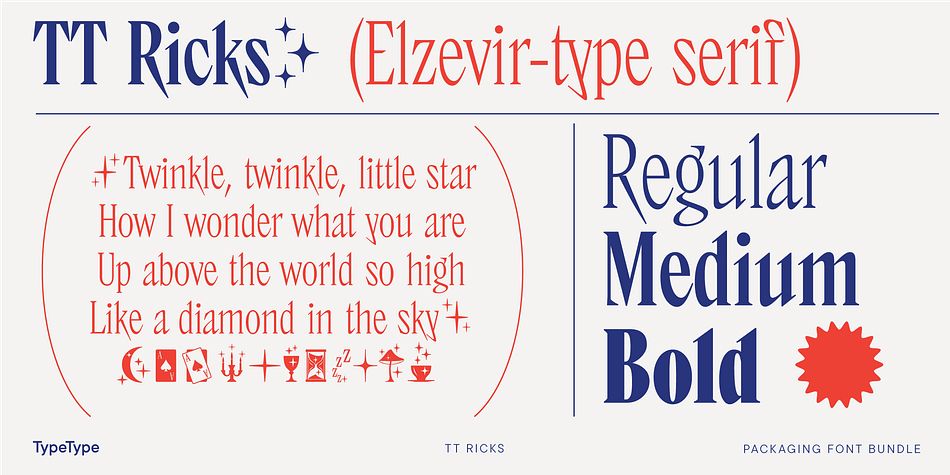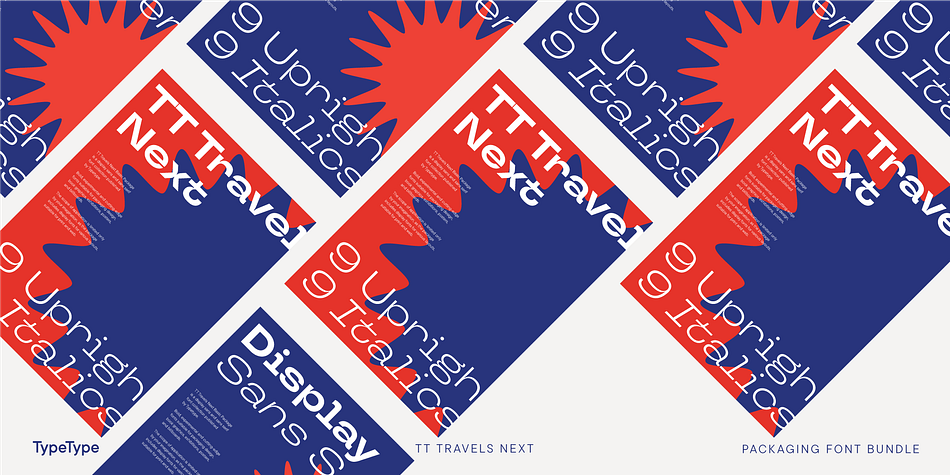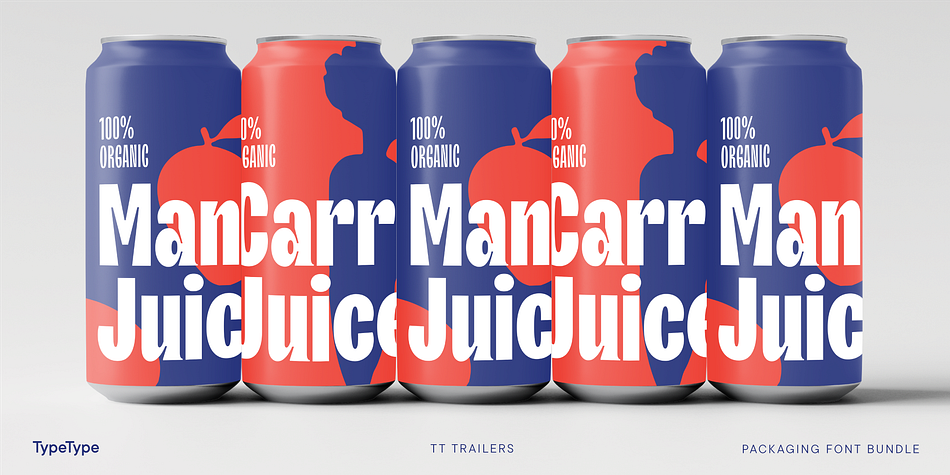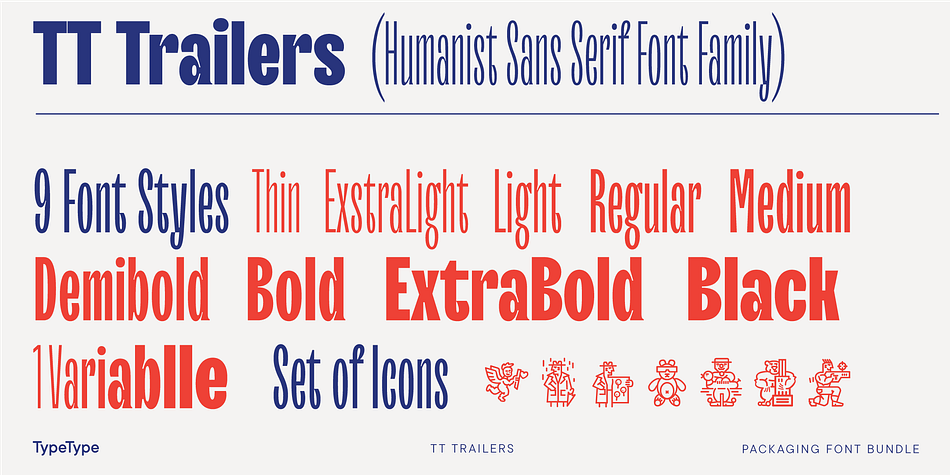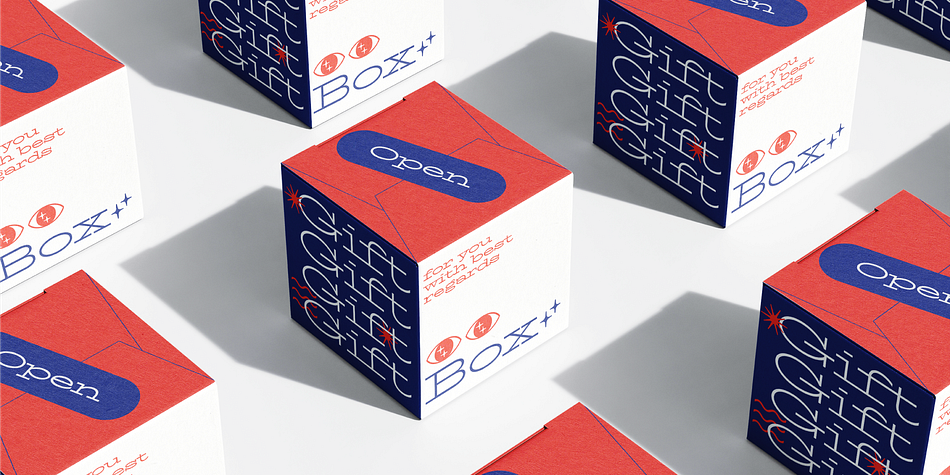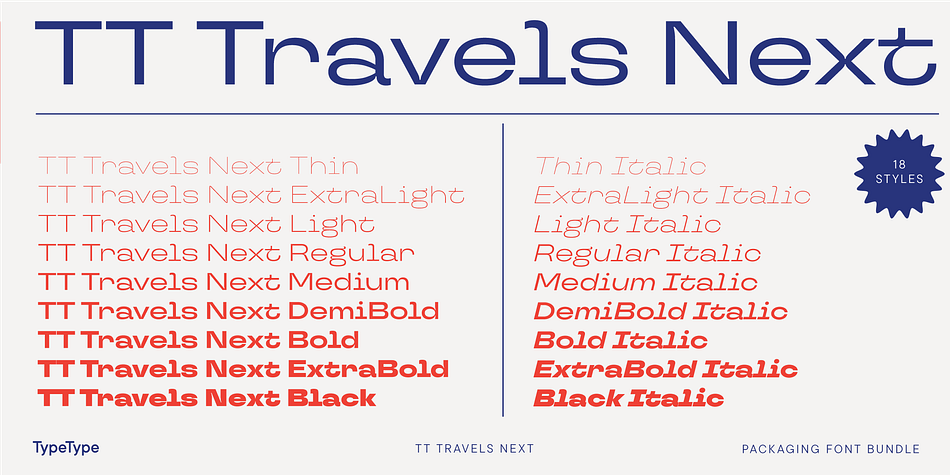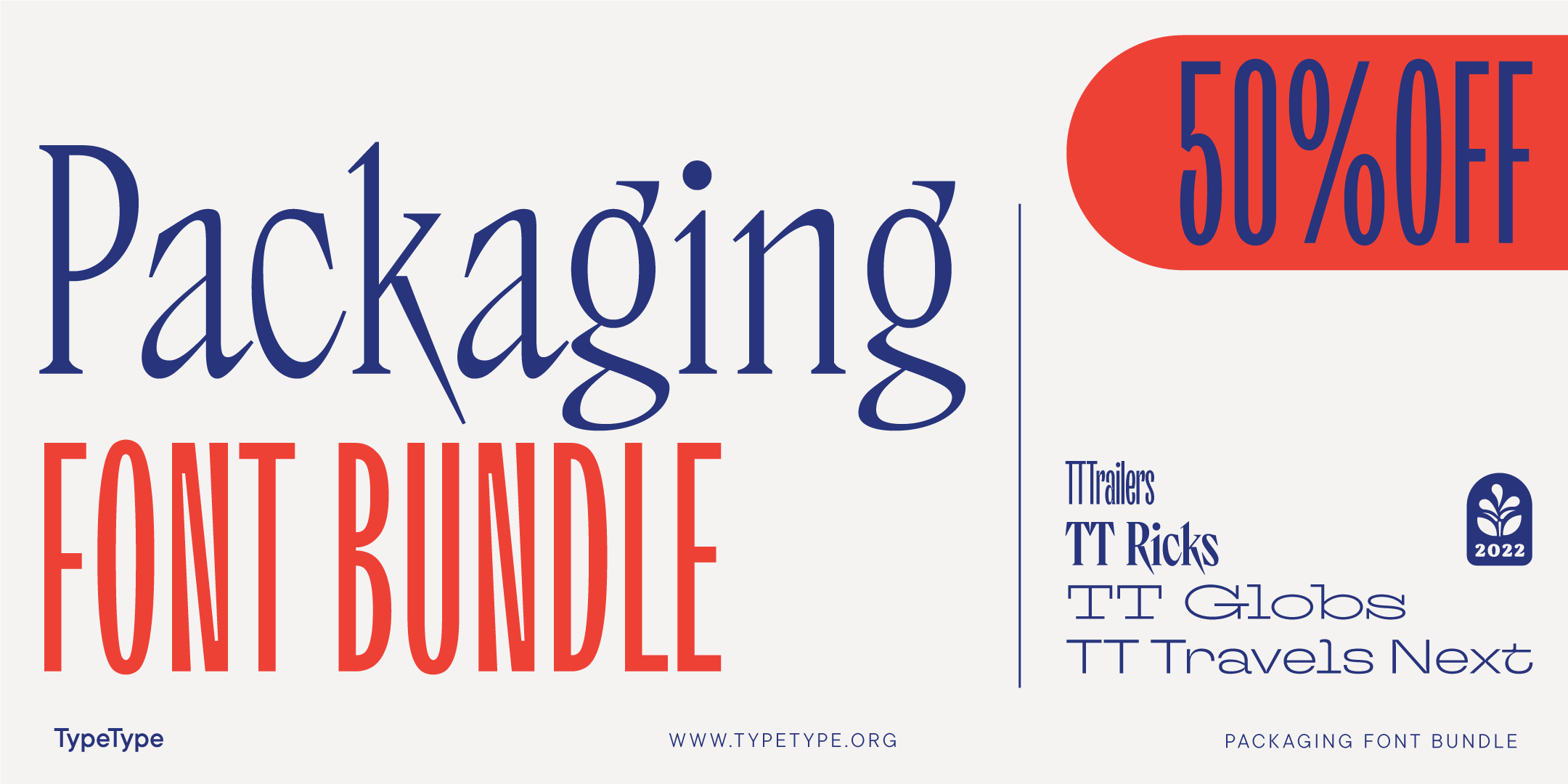
Designed by TypeType Team, Vika Usmanova and Antonina Zhulkova, Packaging font bundle is a multiple classification font collection published by Typetype.
Bold, experimental and cutting-edge fonts suitable for packaging design, book graphics, exhibitions, posters, and billboards.
The scope of application is limited only by your imagination, as the package includes display fonts for various layouts, suitable for print and web.
Styles | Display Sans, Display Slab, Slab Serif, Dingbat |
Designers | TypeType Team, Vika Usmanova, Antonina Zhulkova |